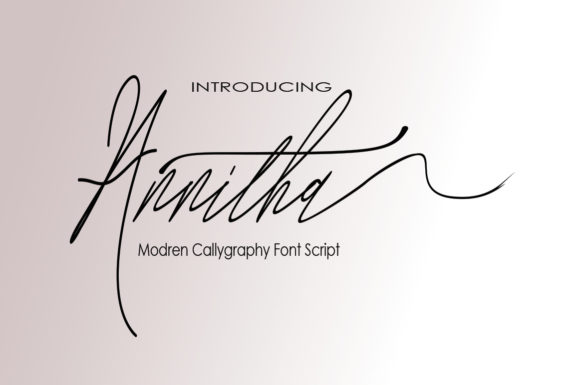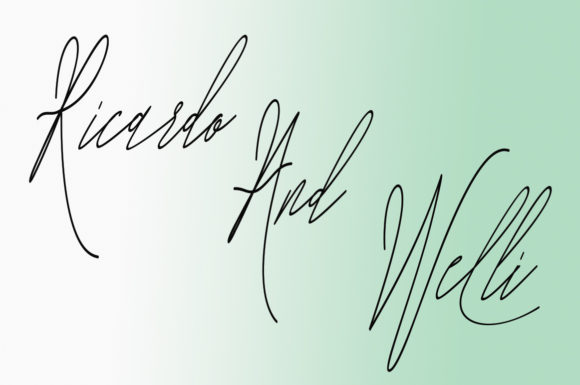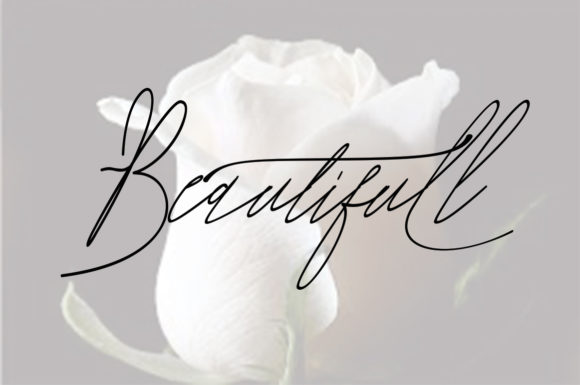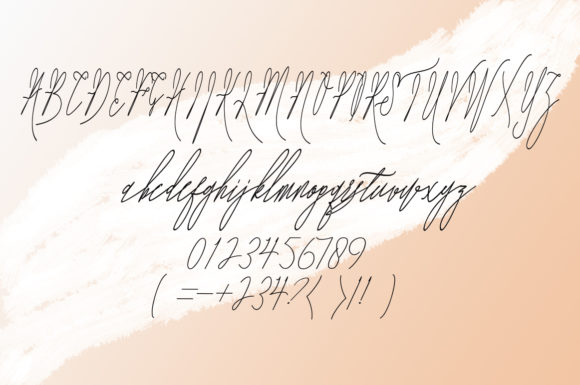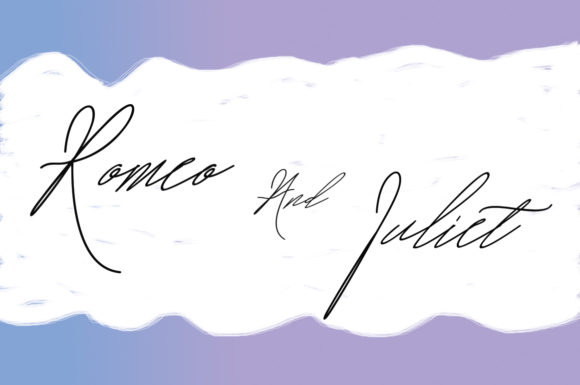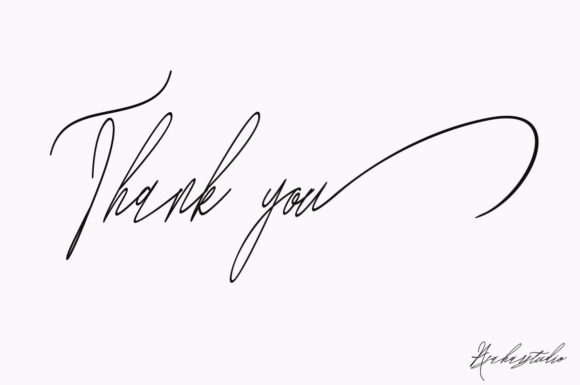
Annitha Font
About Annitha Font
The Annitha is a modern clligraphy script. It has an elegant style and will add an upscale and chic look to your designs.